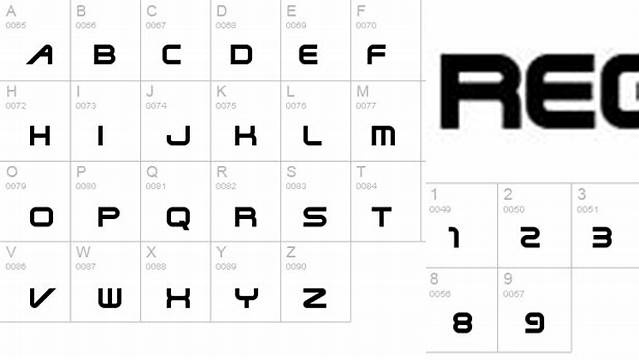
Hey guys! Are you on the lookout for a sleek, modern, and versatile font for your next project? Look no further! In this comprehensive guide, we're diving deep into the world of Steel Regular font, exploring its features, use cases, and, most importantly, where you can snag it for free. We'll cover everything from the font's unique characteristics to how you can best utilize it in your designs. So, buckle up and let's get started!
Steel Regular font is a contemporary typeface known for its clean lines and strong presence. Its design exudes a sense of modernity and professionalism, making it a favorite among designers and creatives across various fields. The font's name, “Steel,” aptly reflects its robust and sturdy appearance, evoking images of industrial strength and urban landscapes. The letterforms are carefully crafted to ensure legibility and visual appeal, making Steel Regular font suitable for a wide range of applications. Its balanced proportions and consistent stroke weight contribute to its overall harmony and readability, whether used in headlines, body text, or branding materials. The font's versatility stems from its ability to convey both a sense of authority and approachability, making it an excellent choice for projects aiming to make a bold yet sophisticated statement. The Steel Regular font is designed with precision and attention to detail, ensuring it stands out in both digital and print mediums. Its clean and minimalist aesthetic allows it to pair well with other fonts, offering designers the flexibility to create dynamic and visually appealing layouts. Whether you're designing a website, crafting a logo, or putting together a presentation, Steel Regular font can add a touch of contemporary elegance and professionalism to your work. Its robust character set includes all the essential glyphs, ensuring it meets the needs of most design projects. The font's design characteristics make it particularly effective in scenarios where clarity and impact are crucial, such as signage, editorial layouts, and marketing materials. The subtle nuances in its letterforms contribute to its distinctive personality, setting it apart from more generic typefaces. Overall, Steel Regular font is a valuable asset for any designer looking to enhance their typographic toolkit with a modern and versatile option. Its timeless appeal ensures that it will remain a relevant choice for a wide array of design applications for years to come. So, if you're aiming for a font that combines strength, clarity, and contemporary style, Steel Regular font is definitely worth considering.
When we talk about key features of Steel Regular font, we're really digging into what makes this typeface stand out. Its legibility is top-notch, ensuring that your message is clear and easily readable, whether it's on a screen or in print. The clean lines contribute to its modern aesthetic, making it a versatile choice for various design projects. The font's strong presence is another significant feature; it commands attention without being overwhelming, perfect for headlines and branding. What sets Steel Regular font apart is its meticulous design, which balances robustness with elegance. The letterforms are crafted with precision, resulting in a harmonious and visually appealing typeface. Its balanced proportions and consistent stroke weight add to its overall clarity, making it suitable for both large and small text sizes. This font also boasts a wide character set, including uppercase and lowercase letters, numerals, and punctuation marks, ensuring you have everything you need for comprehensive typographic work. The contemporary style of Steel Regular font makes it ideal for projects that aim to convey a sense of innovation and modernity. Its minimalist design allows it to pair seamlessly with other fonts, giving you the creative freedom to experiment and achieve the desired visual impact. Furthermore, the font's adaptability extends to various mediums, from digital interfaces to printed materials, ensuring consistency across all platforms. One of the standout features is its ability to maintain clarity and legibility even in smaller sizes, which is crucial for body text and detailed design elements. The Steel Regular font also exudes a sense of professionalism, making it a great option for corporate branding and formal communications. Its understated yet impactful design helps to create a sophisticated and trustworthy image. The font's versatility is further enhanced by its suitability for a range of applications, from web design to print layouts, signage, and more. In essence, the key features of Steel Regular font combine to create a typeface that is both functional and aesthetically pleasing, making it a valuable asset in any designer's toolkit. Its blend of modernity, legibility, and strong presence ensures that your message is delivered effectively and with style. So, when you're looking for a font that can handle a variety of tasks while maintaining a consistent visual appeal, Steel Regular font is definitely a contender to consider. Its thoughtful design and versatile nature make it a reliable choice for any project aiming to make a lasting impression.
So, where does Steel Regular font really shine? Well, let's explore some ideal use cases. If you're working on branding and logos, this font is a fantastic choice. Its clean and professional appearance helps to create a strong visual identity for your brand. For website design, Steel Regular font offers excellent readability, making it perfect for both headings and body text. This ensures your website looks modern and is easy to navigate. When it comes to marketing materials, such as brochures and flyers, the font's strong presence can help your message stand out and capture attention. Think about using it in editorial design too; the legibility and contemporary style make it suitable for magazines, newspapers, and online articles. In the realm of corporate communications, such as reports and presentations, Steel Regular font adds a touch of professionalism and clarity, ensuring your documents look polished and credible. Another great use case is signage and wayfinding. Its clear and legible letterforms make it easy for people to read and follow directions, which is crucial in public spaces. For mobile apps, the font's readability on smaller screens is a significant advantage, enhancing the user experience. Consider using Steel Regular font in e-books as well; its clean lines and legibility make it a comfortable read for extended periods. In the world of social media graphics, this font can help you create visually appealing posts that align with your brand's aesthetic. Lastly, Steel Regular font works wonders in infographics, where clarity and concise presentation are key. Its modern style ensures your data looks professional and is easy to understand. Overall, the versatility of Steel Regular font makes it a valuable asset in various design projects. From branding to digital media, its clean lines and strong presence help you convey your message effectively and with style. Its ability to maintain legibility across different mediums ensures consistency in your brand's visual identity. So, whether you're designing a website, creating marketing materials, or working on a corporate presentation, Steel Regular font is a reliable choice that can elevate your work and make a lasting impression. Its adaptability and aesthetic appeal make it a go-to font for designers looking to achieve a modern and professional look.
Alright, so you've got Steel Regular font installed, but how do you really make it shine? Let's dive into some tips for using it effectively. First off, consider pairing Steel Regular font with other fonts. While it's a strong font on its own, pairing it with a complementary typeface can elevate your design. A good rule of thumb is to pair a sans-serif font like Steel Regular with a serif font for body text. This creates a visual contrast that's pleasing to the eye. Think about using a classic serif font like Times New Roman or Georgia for your body text, and let Steel Regular font handle the headlines and subheadings. Next up, think about the font size and weight. Steel Regular font is highly legible, but that doesn't mean you can get away with tiny font sizes. Make sure your text is large enough to read comfortably, especially on screens. Also, experiment with different font weights if they're available. A slightly bolder weight can add emphasis, while a lighter weight can create a more delicate feel. Don't be afraid to play with letter spacing and line height. Adjusting these properties can dramatically improve the readability of your text. For headlines, a little extra letter spacing can create a sophisticated look. For body text, make sure your line height is generous enough to prevent the lines from feeling cramped. Another key tip is to use Steel Regular font consistently. Consistency is crucial in design, so stick to a limited number of fonts throughout your project. Using Steel Regular font for headings and subheadings and another font for body text can create a cohesive and professional look. Consider using color strategically. The color of your text and background can have a significant impact on readability and overall aesthetic. Steel Regular font works well in a variety of colors, but make sure there's enough contrast between your text and background to ensure legibility. For example, dark text on a light background is a classic combination that's easy on the eyes. Don't forget about hierarchy. Use font size and weight to create a visual hierarchy that guides the reader through your content. Larger, bolder text for headings and smaller, lighter text for body copy helps readers quickly grasp the structure of your content. Finally, test your design across different mediums. What looks great on your computer screen might not translate perfectly to print or a mobile device. Always test your design in various formats to ensure that Steel Regular font looks its best in all contexts. By following these tips, you can leverage the strengths of Steel Regular font and create visually appealing and effective designs. Its versatility and clean aesthetic make it a valuable asset in any designer's toolkit, so experiment, have fun, and let your creativity shine!